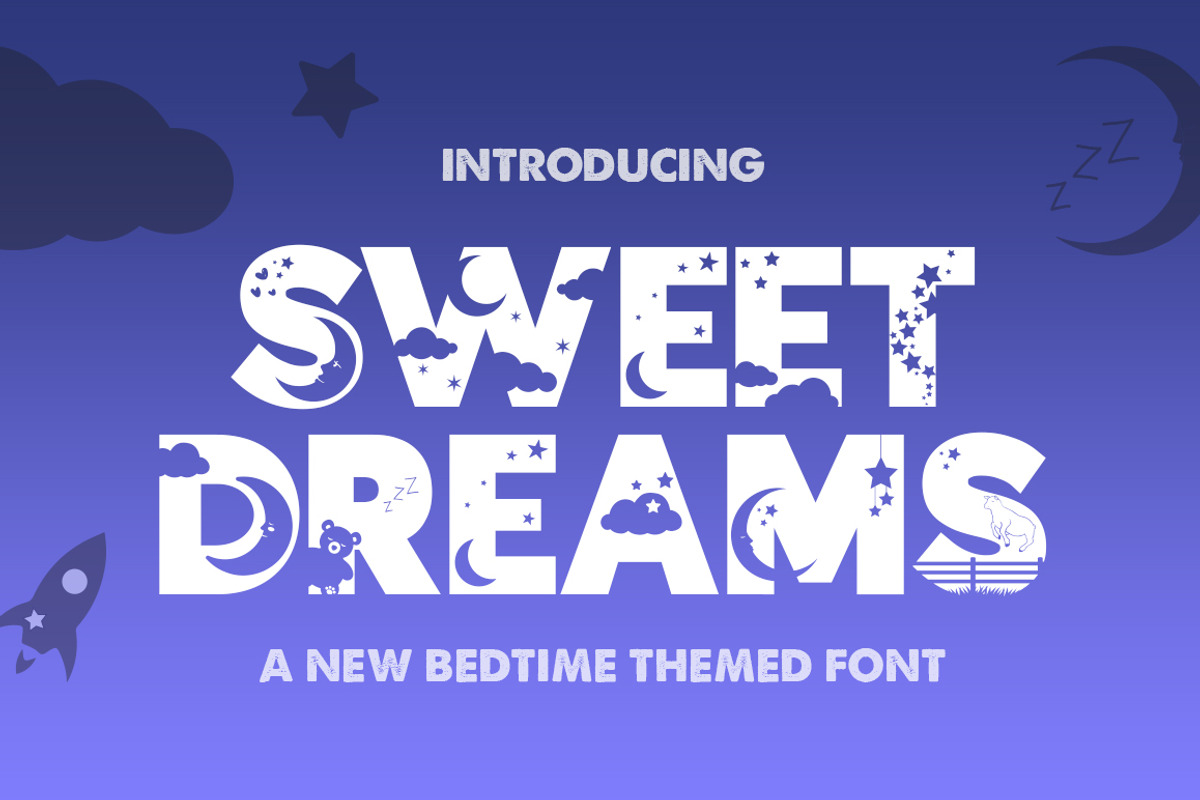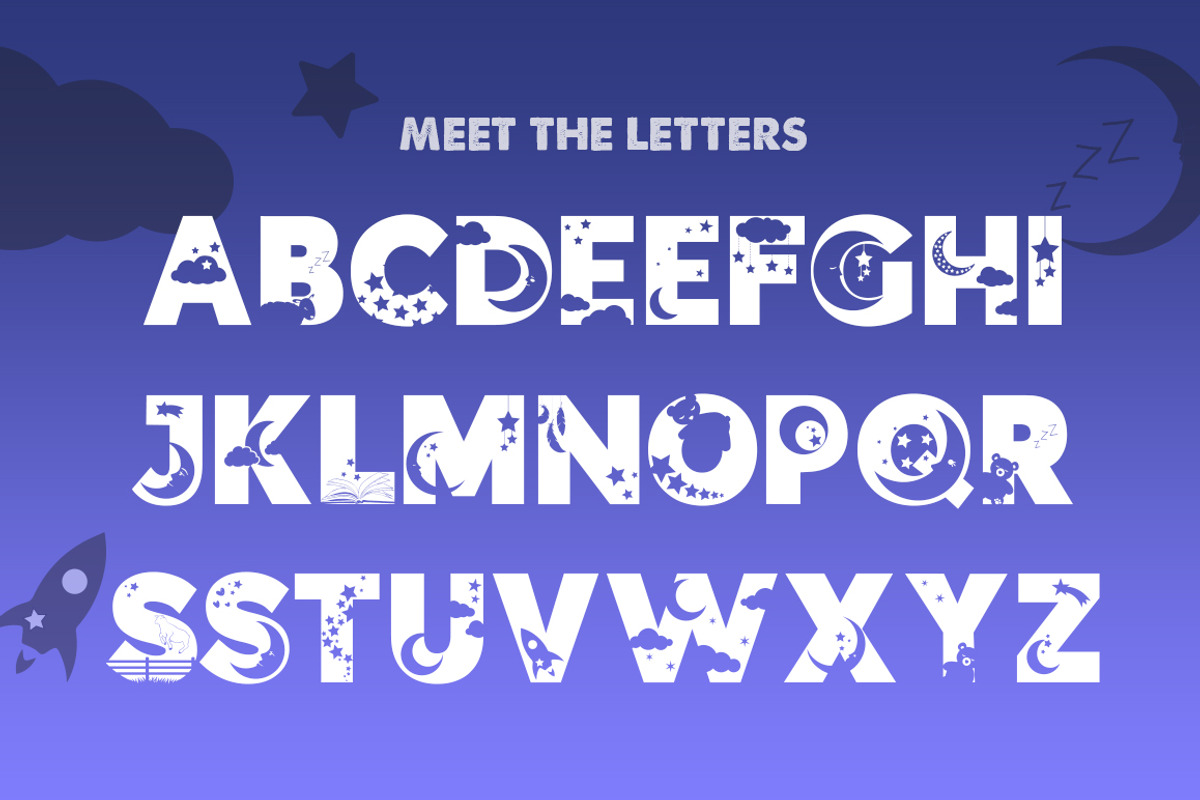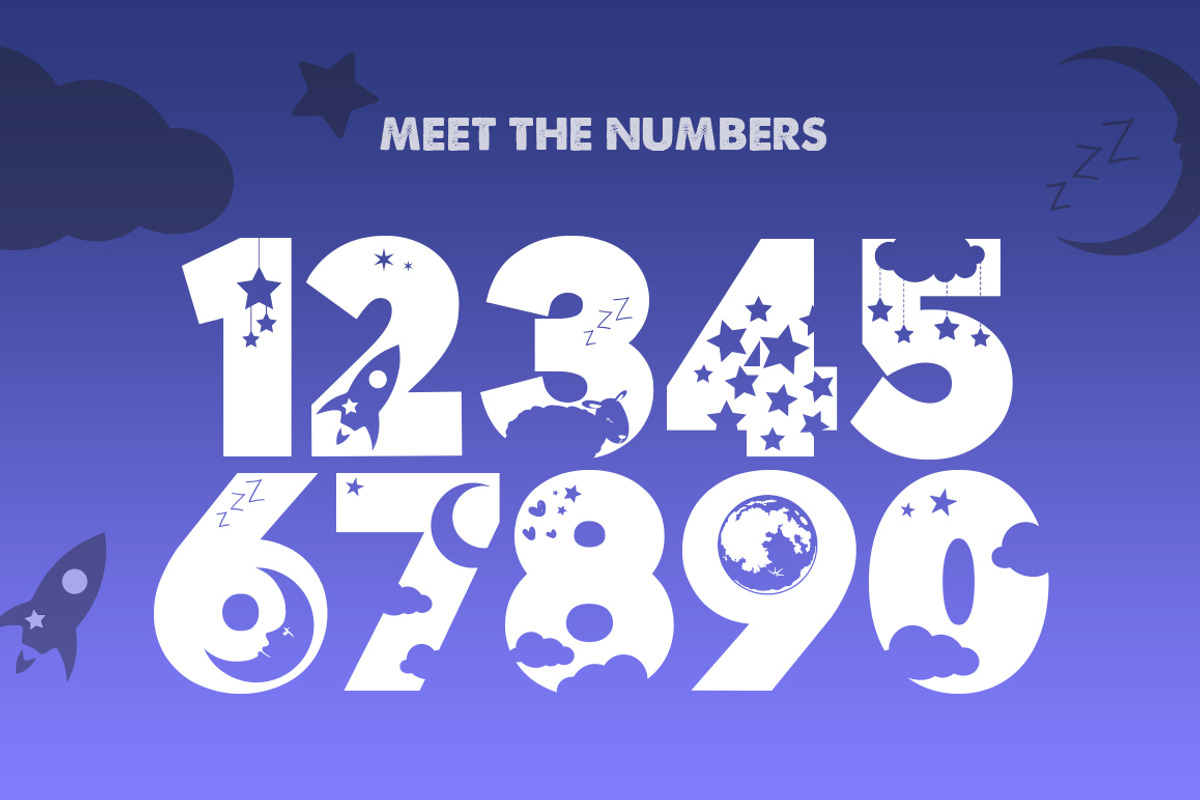
Sweet Dreams Silhouette Font
Why Sweet Dreams Silhouette Font is worth a look
Sweet Dreams Silhouette Font by Salt & Pepper Designs fits naturally into Branding, posters, packaging, typography.